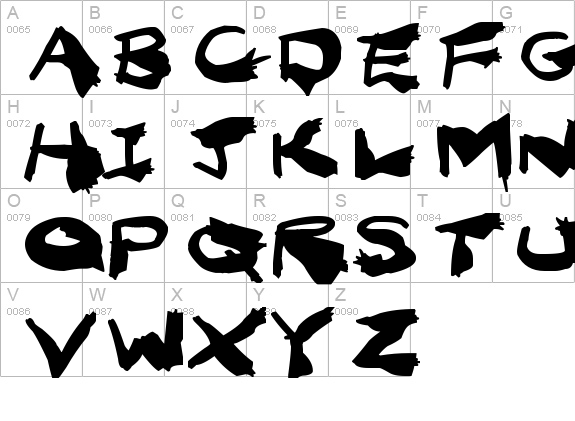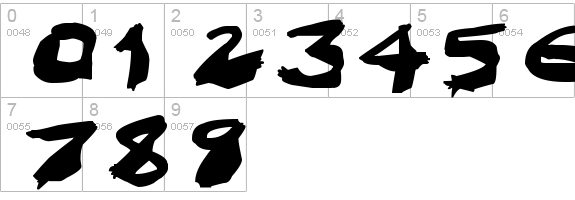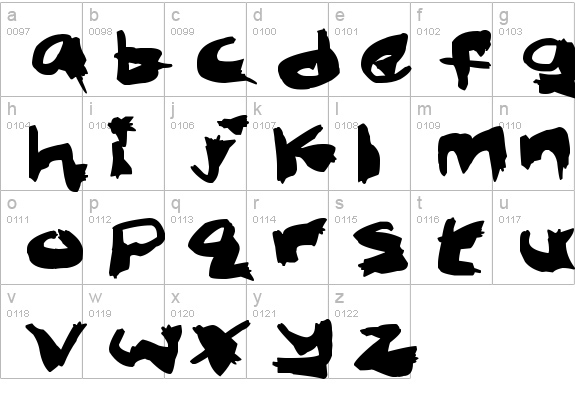
Nightmare Ink Font Details
Nightmare Ink is a free for personal use font in the Theme > Horror category, designed by Darrell Flood. It has been downloaded 58 times and is available for Windows, Mac and Linux.
Nightmare Ink font is a mesmerizing and haunting typeface that brings a sense of intrigue and darkness to any design project. With its sharp edges and edgy aesthetic, this font is perfect for creating a chilling atmosphere in your designs. Nightmare Ink font is versatile and can be used for a variety of projects, from posters to logos to social media graphics.